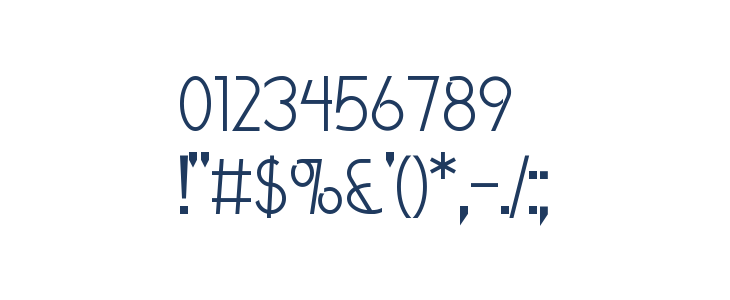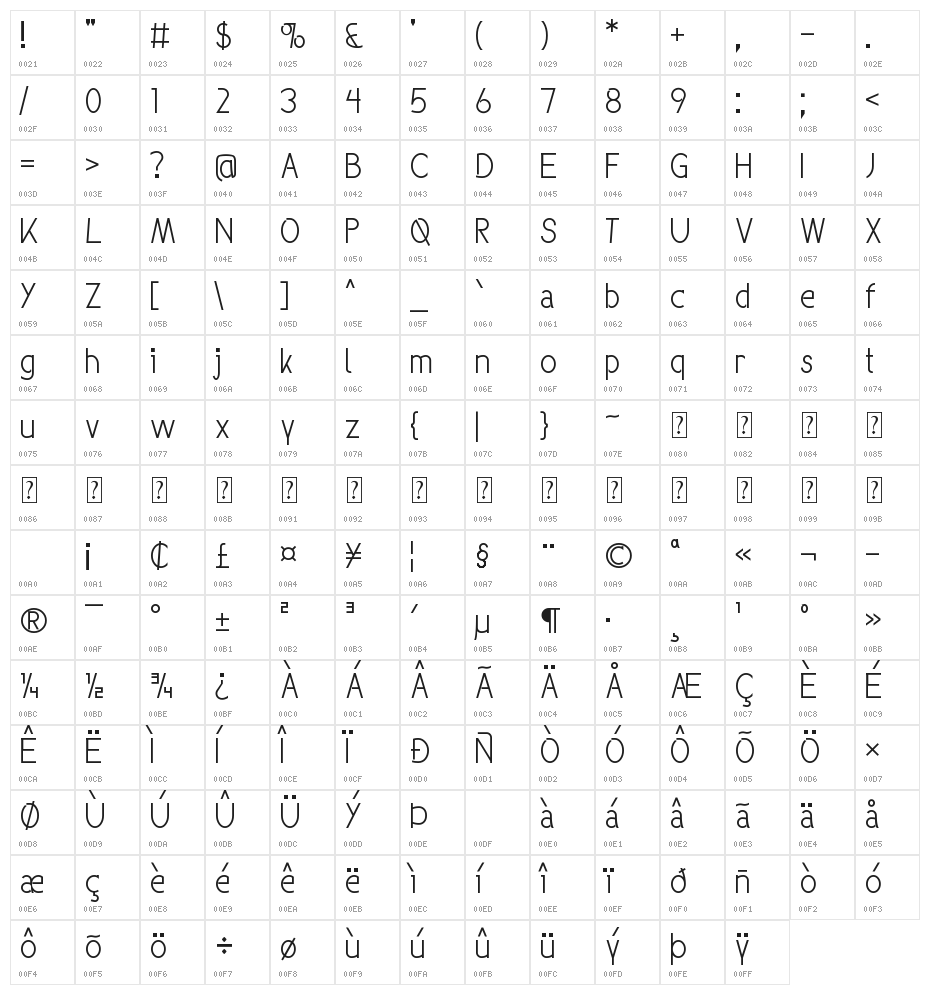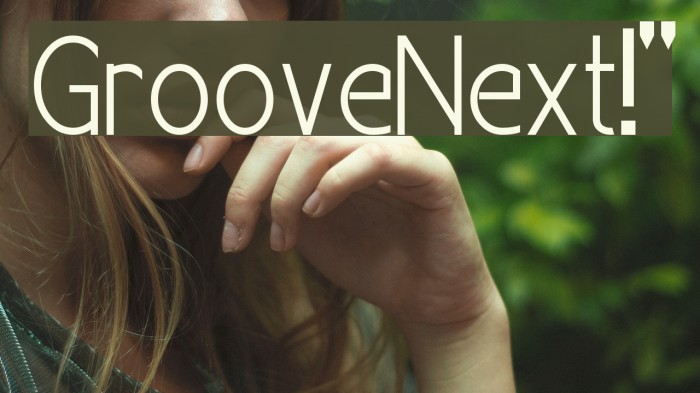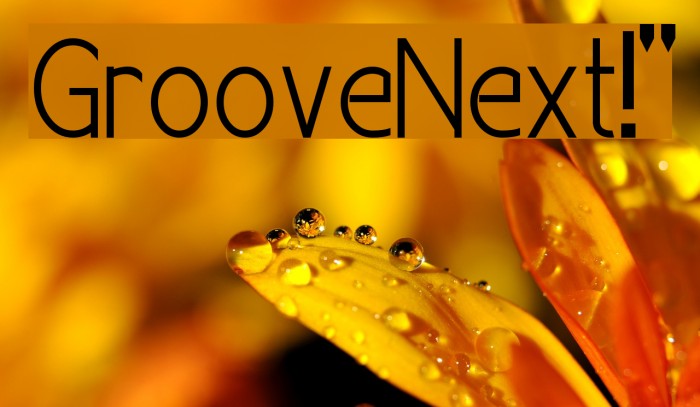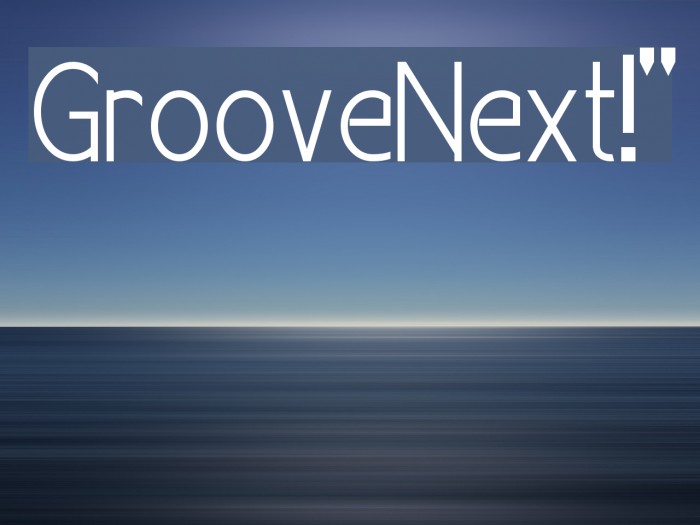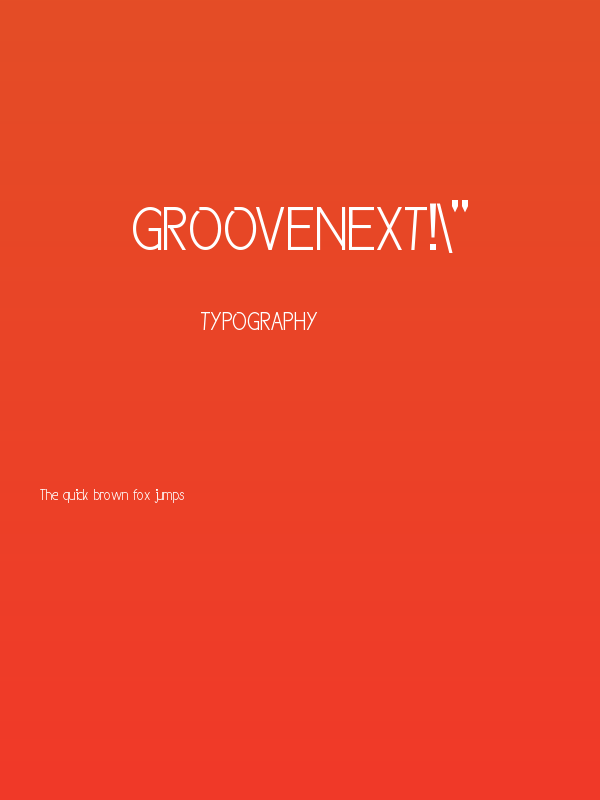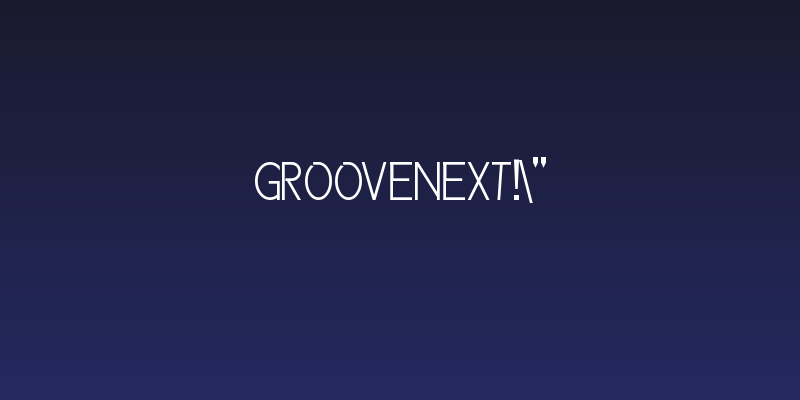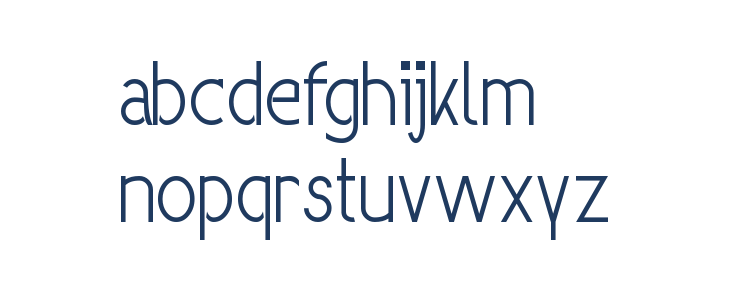
GrooveNext!" Font
GrooveNext!" Description
This font features a sleek and modern design with clean lines and geometric shapes. The uppercase letters are tall and slightly narrow, giving a sense of elegance and sophistication. The lowercase letters maintain a consistent style, with rounded edges that add a touch of softness to the overall appearance. The numerals are clear and easy to read, making them suitable for various applications. Special characters are well-integrated, maintaining the font's cohesive look. The overall style is contemporary, making it versatile for both digital and print media.